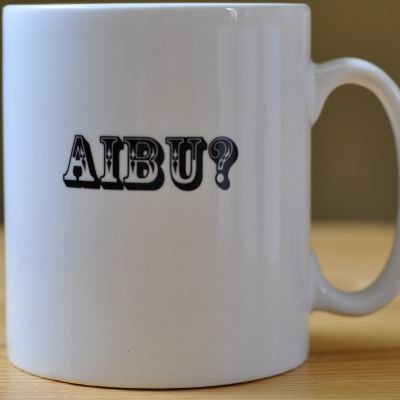
what font is this please?
I googled imaged for "font Victorian show" (as in posters for a Victorian showground) and that led me here: www.fontspace.com/category/circus which has something similar, but if you are looking for an exact match, you may have to scroll through more images!
Not sure if you're still looking for the answer to this, but fairly certain that's Rosewood (I am obsessed with fonts!)